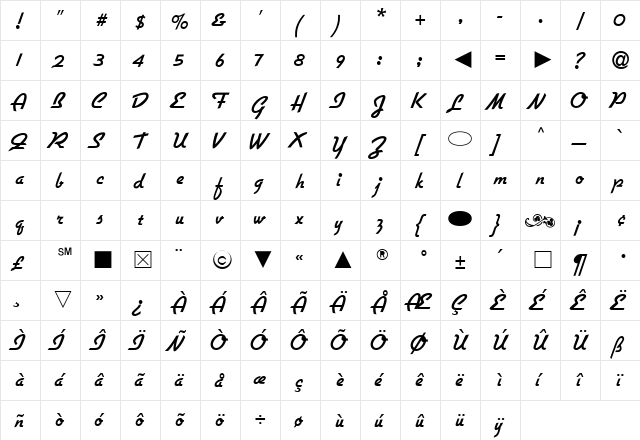
Cg Medium
Design Context for Cg Typeface
Cg is a composed and adaptable typeface that performs quietly and consistently across a wide range of design contexts.
Pro Tip: Pair Cg with a font of contrasting weight or personality to build a more expressive typographic hierarchy.